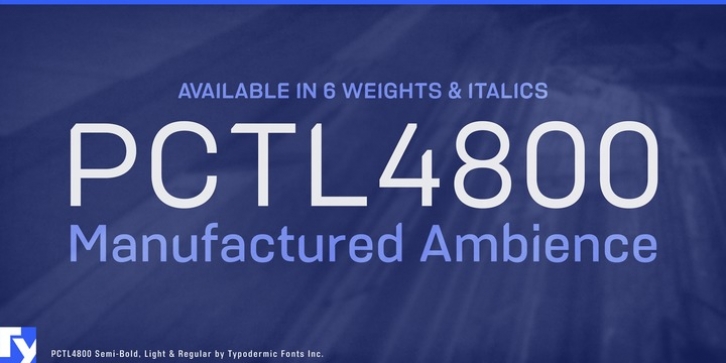
PCTL4800 was designed by Ray Larabie and published by Typodermic. PCTL4800 contains 12 styles and family package options.
PCTL4800 is a technical sans-serif typeface. Good designers have a depository of orthodox, technical typefaces in their toolbox. Often, industrial fonts have visual hints that link them to a particular time period. A retro look isn't always desirable, especially if you're aiming for a contemporary or futuristic look. Not so with PCTL4800 whose sober, doctrinal design eschews retro baggage without resorting to corny techno gimmickry. PCTL4800 contains one preternatural aspect: the corner index notch. It's meant to subtly suggest an unknown technical requirement to the reader-perhaps an orientation prompt like the notch in an SD card. If you prefer a more conservative look without the corner notch, try PCTL9600. PCTL4800 includes 6 weights and italics. Almost all current Latin based languages are supported, including Cyrillic languages and Greek.